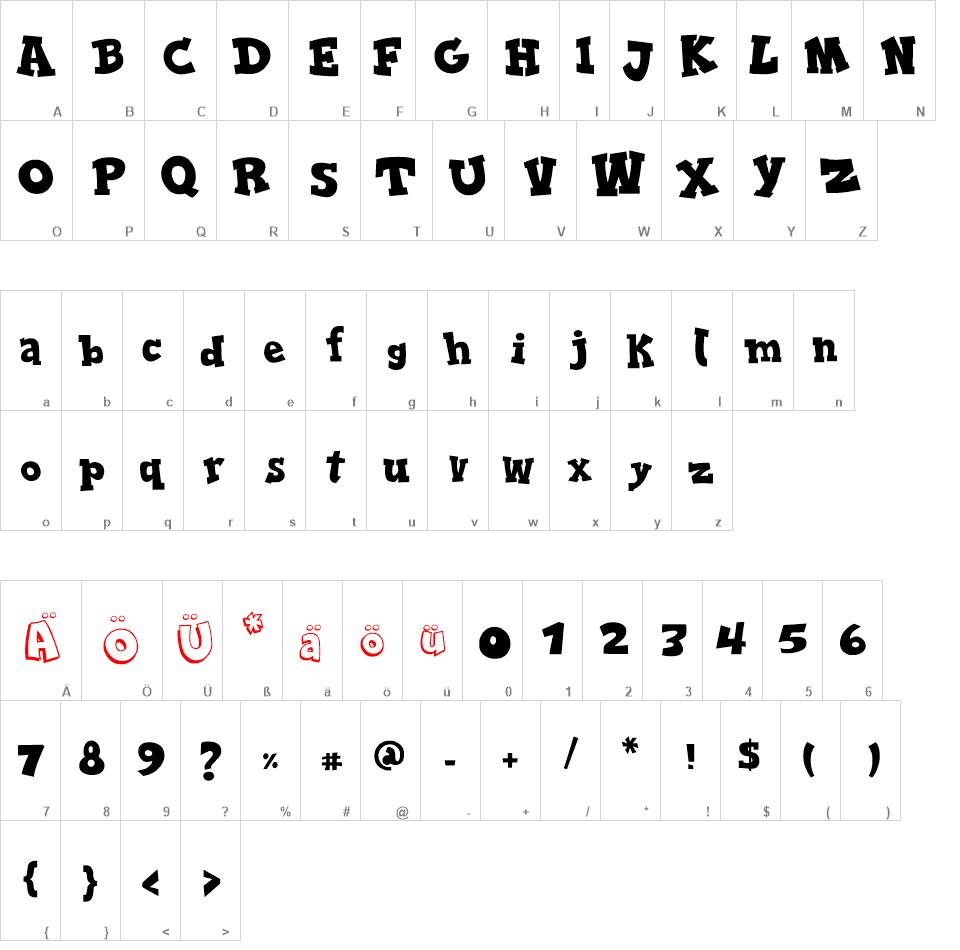
Serifa Comica
Here is a complete version of the font everyone is looking for! The Rayman 2 font was one of the greatest of the series, and nobody has ever found a decent copy! So I decided to devote my time to create a perfectly designed replica of the original!